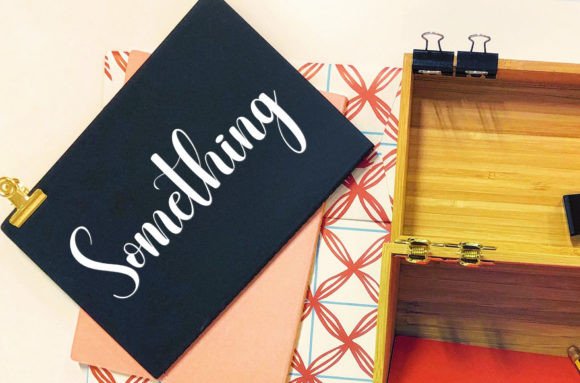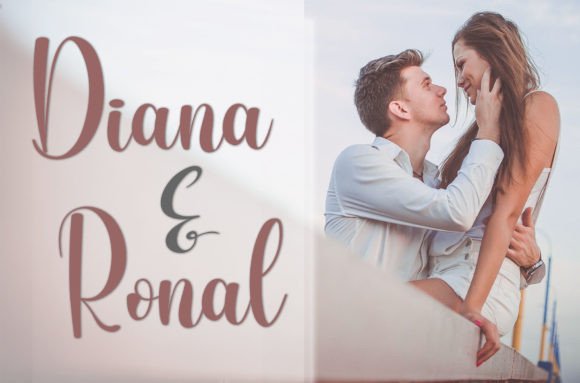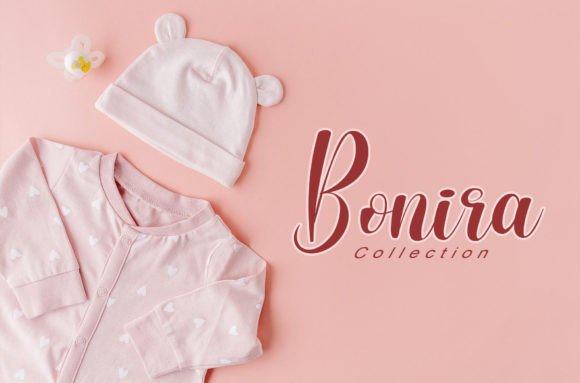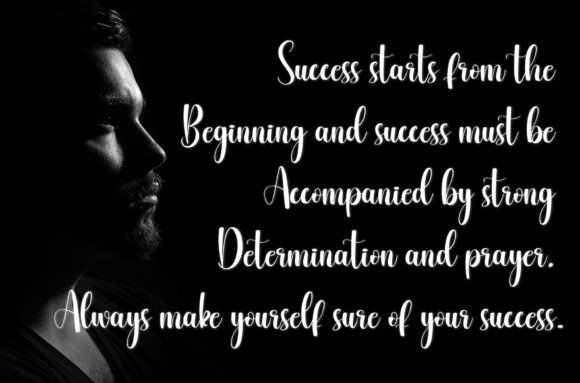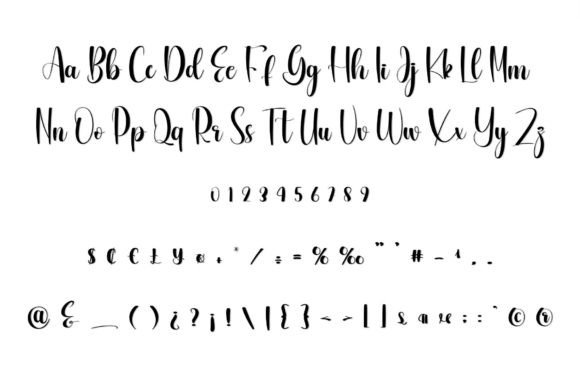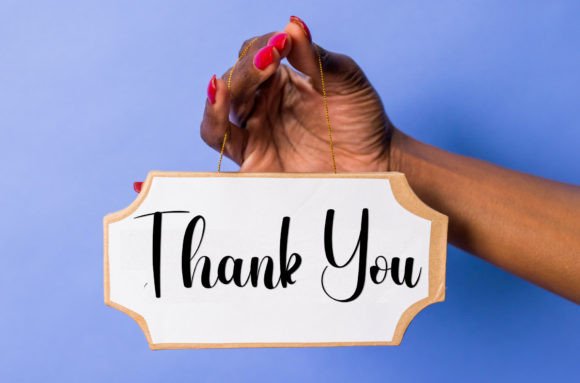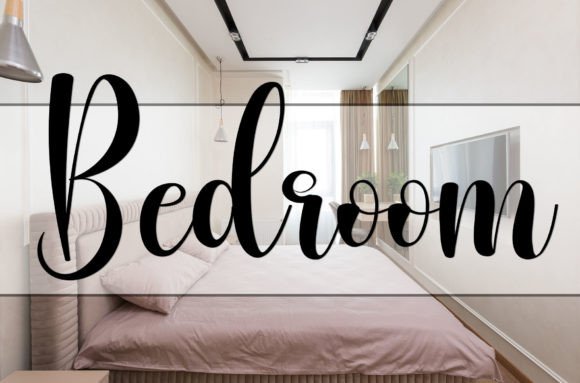
Introducing Bedroom Font: The Sweet and Friendly Handwritten Font for Your Design Needs
Are you a designer or crafter looking for a font that can add a touch of warmth and personality to your designs? Look no further than Bedroom Font, a sweet and friendly handwritten font that’s perfect for creating beautiful wedding invitations, cards, and other designs that require a fun and playful touch.
What Makes Bedroom Font Special?
Bedroom Font is a fresh and clean handwritten font that’s designed to bring a sense of joy and whimsy to your designs. Its sweet and friendly style makes it ideal for a variety of projects, from wedding invitations and cards to party decorations and social media graphics.
One of the standout features of Bedroom Font is its unique and charming handwriting style. The font’s creator has carefully crafted each letter to have a personal and intimate feel, making it perfect for designs that require a touch of warmth and personality.
Why Choose Bedroom Font for Your Designs?
There are many reasons why Bedroom Font is an excellent choice for designers and crafters. Here are just a few:
- Perfect for wedding designs: Bedroom Font is ideal for creating beautiful wedding invitations, save-the-date cards, and other wedding-related designs. Its sweet and romantic style is sure to impress any couple looking for a unique and personalized touch.
- Adds a playful touch: Bedroom Font’s fun and playful style makes it perfect for designs that require a lighthearted and whimsical touch. Use it to create eye-catching party decorations, social media graphics, and more.
- Easy to read: Despite its playful style, Bedroom Font is surprisingly easy to read, making it perfect for designs that require a clear and legible font.
- Versatile: Bedroom Font can be used for a wide range of designs, from digital projects to print materials. Its versatility makes it an excellent addition to any designer’s toolkit.
How to Use Bedroom Font in Your Designs
Using Bedroom Font in your designs is easy. Here are a few tips to get you started:
- Pair it with other fonts: Bedroom Font pairs well with other fonts, especially sans-serif fonts. Try pairing it with a clean and modern font to create a beautiful contrast.
- Experiment with colors: Bedroom Font looks great in a variety of colors, from soft pastels to bold brights. Experiment with different colors to find the perfect look for your design.
- Use it for headings and titles: Bedroom Font is perfect for headings and titles, where its playful style can really shine.
Bedroom Font is a sweet and friendly handwritten font that’s perfect for designers and crafters looking to add a touch of warmth and personality to their designs. Its unique and charming handwriting style makes it ideal for wedding invitations, cards, and other designs that require a fun and playful touch. With its versatility, ease of use, and beautiful style, Bedroom Font is an excellent addition to any designer’s toolkit.